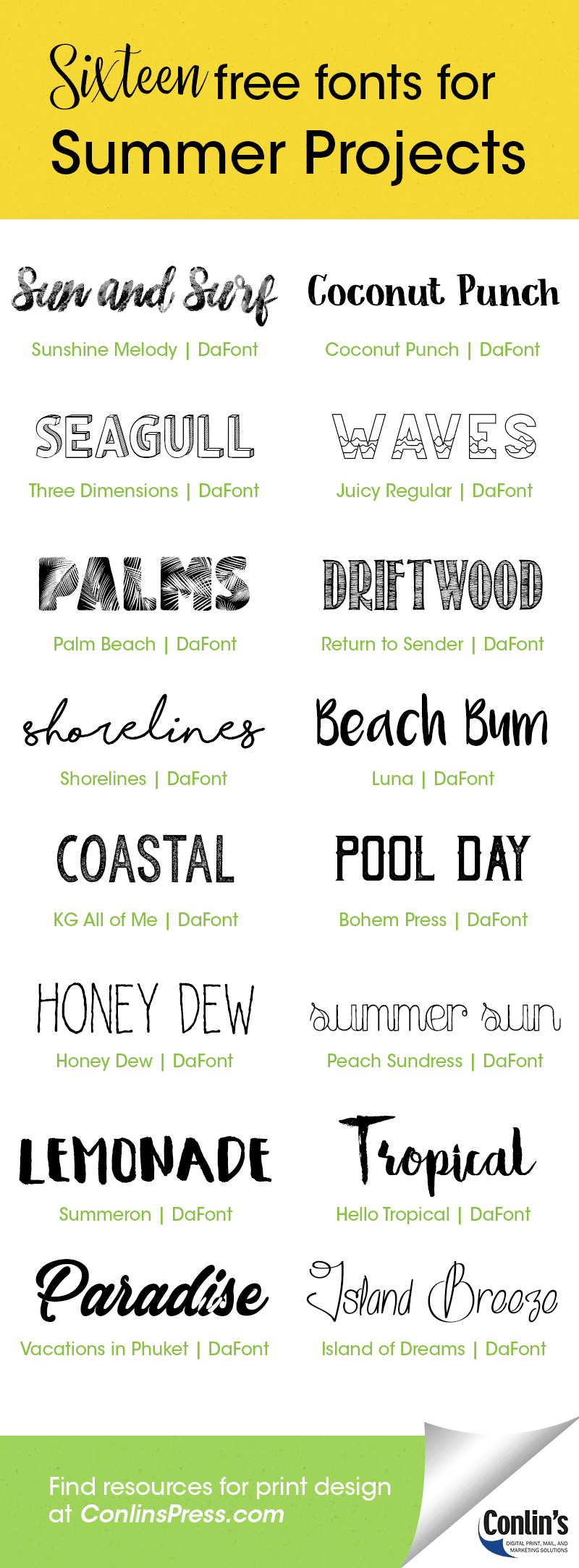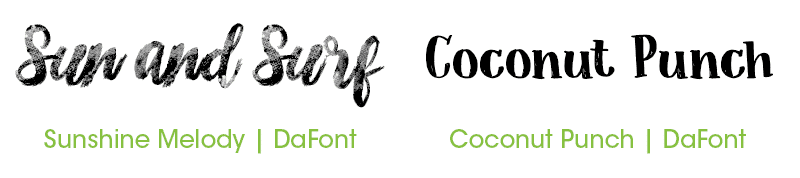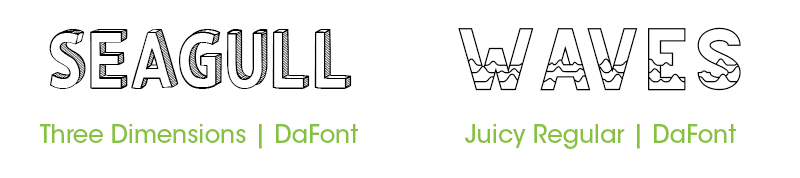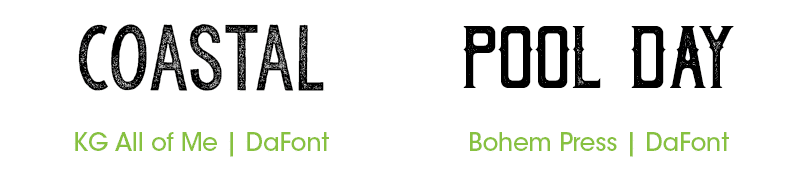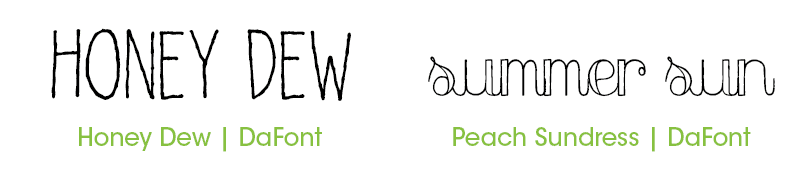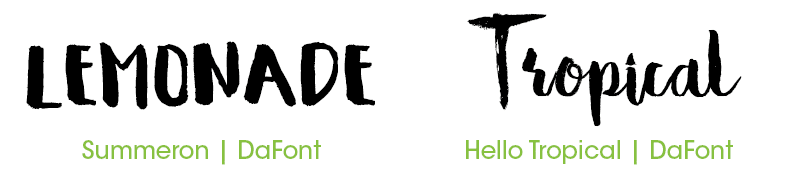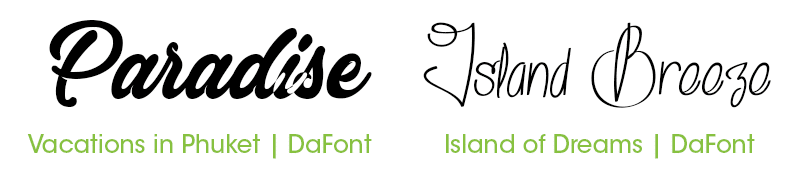
16 Free Fonts for Summer Design
Summer is just around the corner! We've gathered a collection of our favorite fonts that capture the essence of this season. They are perfect for your summer-themed print design projects!